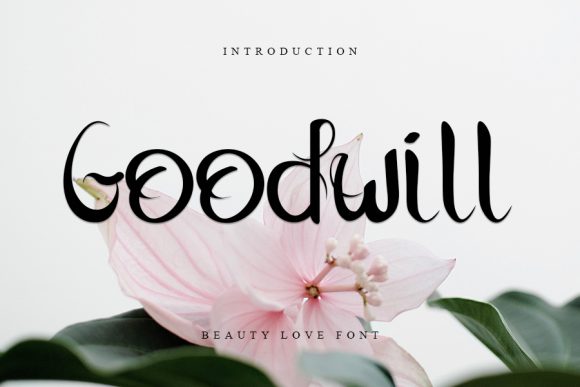
Introducing Goodwill Font: The Ultimate Choice for Designers and Crafters
Are you tired of using the same old fonts in your designs? Look no further! Goodwill Font is here to revolutionize your creative projects with its cool, trendy, and neat handwritten style. This simple yet visually striking font is sure to make your creations stand out from the crowd.
What Makes Goodwill Font So Special?
Goodwill Font is a game-changer for designers and crafters alike. Its unique blend of simplicity and visual appeal makes it the perfect choice for a wide range of projects, from branding and advertising to crafting and DIY tutorials. Here are just a few reasons why Goodwill Font is a must-have in your font collection:
- Strong Visual Effect: Goodwill Font has a strong visual effect that will instantly elevate your designs. Its clean lines and neat handwriting style make it easy to read and understand, while its trendy vibe will keep your projects looking fresh and modern.
- Versatility: Goodwill Font is incredibly versatile, making it suitable for a wide range of projects. Whether you’re designing a logo, creating a social media graphic, or crafting a handmade card, this font will help you achieve your creative vision.
- Easy to Read: One of the most important aspects of any font is readability. Goodwill Font excels in this area, with clear and concise lettering that will ensure your message gets across to your audience.
How to Use Goodwill Font in Your Designs
- Use it for Headings and Titles: Goodwill Font is perfect for headings and titles, where its strong visual effect can really shine. Use it to draw attention to important information or to create a stunning visual impact.
- Experiment with Colors and Textures: Goodwill Font looks great in a variety of colors and textures. Experiment with different shades and patterns to find the perfect combination for your project.
Goodwill Font in Crafting and DIY Projects
Goodwill Font is not just limited to digital designs. It’s also a great choice for crafting and DIY projects, such as:
- Handmade Cards and Invitations: Add a personal touch to your handmade cards and invitations with Goodwill Font. Its neat handwriting style is perfect for creating beautiful, one-of-a-kind designs.
- Journaling and Scrapbooking: Goodwill Font is a great choice for journaling and scrapbooking. Use it to add captions and notes to your photos and artwork.
- Sign-Making and DIY Projects: Goodwill Font is also perfect for sign-making and other DIY projects. Use it to create eye-catching signs, labels, and other decorative items.
In conclusion, Goodwill Font is a cool, trendy, and neat handwritten font that is sure to take your designs to the next level. Its strong visual effect, versatility, and ease of use make it a must-have for designers and crafters alike. Whether you’re working on a digital project or a handmade craft, Goodwill Font is the perfect choice. So why wait? Download Goodwill Font today and start creating stunning designs that will leave a lasting impression!
Key Features of Goodwill Font:
- Cool, trendy, and neat handwritten font
- Simple yet strong visual effect
- Versatile and easy to read
- Perfect for digital designs, crafting, and DIY projects
- Pairs well with other fonts and colors